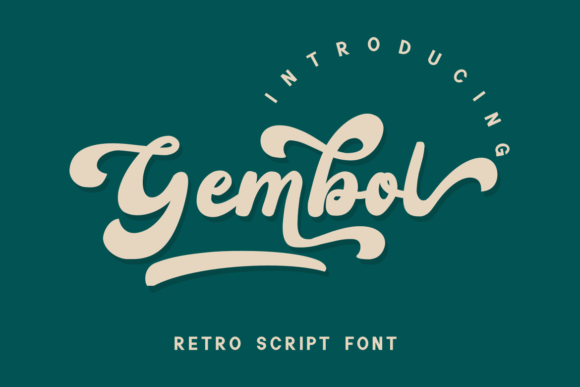
Discovering the Perfect Handwritten Touch
As designers, we’ve all been there – staring at a blank page, trying to bring a project to life. The cursor blinks, and our minds go blank. But then, it happens – a spark of inspiration strikes, and we know exactly what we need: a font that exudes elegance and charm.
Enter the Gembol Font, a beautifully crafted typeface that adds a handwritten touch to any design. Whether you’re creating wedding invitations, thank-you cards, or business logos, Gembol Font is the perfect companion. Its unique blend of sophistication and playfulness makes it a valuable asset for designers looking to add a personal touch to their work.
Gembol Font Key Features
- Unique Characteristics: Gembol Font features a unique blend of modern and vintage elements, making it ideal for creative projects that require a touch of sophistication.
- Font Weight: The font includes various weights, from Light to Bold, allowing designers to adjust the font’s appearance to suit their needs.
Gembol Font Review
I recently had the chance to work with the Gembol font, and I must say it’s a unique addition to any design project. ✨ The font’s bold and modern aesthetic is sure to grab attention and make your designs stand out.
Here are some of the things I like about the Gembol font:
- ✨ Unique and modern design that’s perfect for making a statement
- ✨ Highly customizable, allowing you to tailor it to your specific design needs
- ✨ Works well in a variety of contexts, from digital displays to print materials
However, I did encounter a few limitations:
- ⚠️ Limited character set, which can be a problem if you need to use special characters or languages
- ⚠️ Not all characters render consistently across different devices and platforms
- ⚠️ May not be suitable for body text, as it can be difficult to read in certain font sizes
Overall, I think the Gembol font is a great choice for designers looking to add some visual interest to their projects. While it may have some limitations, its unique design and customization options make it a valuable asset in the right context.
For the most out of Gembol Font, use it for headings and titles to create a unique and eye-catching design.
Use Gembol Font for creative typography and add a touch of elegance to your designs.
Use Gembol Font for presentations and documents that require a touch of sophistication and professionalism.
Gembol Font is ideal for:
- Creative typography and art
- Professional presentations and documents
Alternatives to Gembol Font
The Great Vibes Font is a beautiful, elegant script font ideal for creating a sophisticated and luxurious atmosphere. It is perfect for designing wedding invitations, certificates, or any other formal document where a touch of elegance is required. The Great Vibes Font is more refined and detailed compared to the Gembol Font, making it suitable for formal and high-end designs.
The Pacifico Font is a beautiful, cursive script font that exudes a sense of relaxation and tranquility. It is ideal for designing travel brochures, magazines, or any other material that requires a laid-back and casual tone. The Pacifico Font is more casual and relaxed compared to the Gembol Font, making it suitable for designs that require a friendly and approachable tone.
The Carolyna Pro Font is a modern, elegant sans-serif font that is perfect for creating a clean and sophisticated design. It is ideal for designing business cards, resumes, or any other material that requires a professional and modern tone. The Carolyna Pro Font is more modern and professional compared to the Gembol Font, making it suitable for designs that require a sleek and contemporary look.